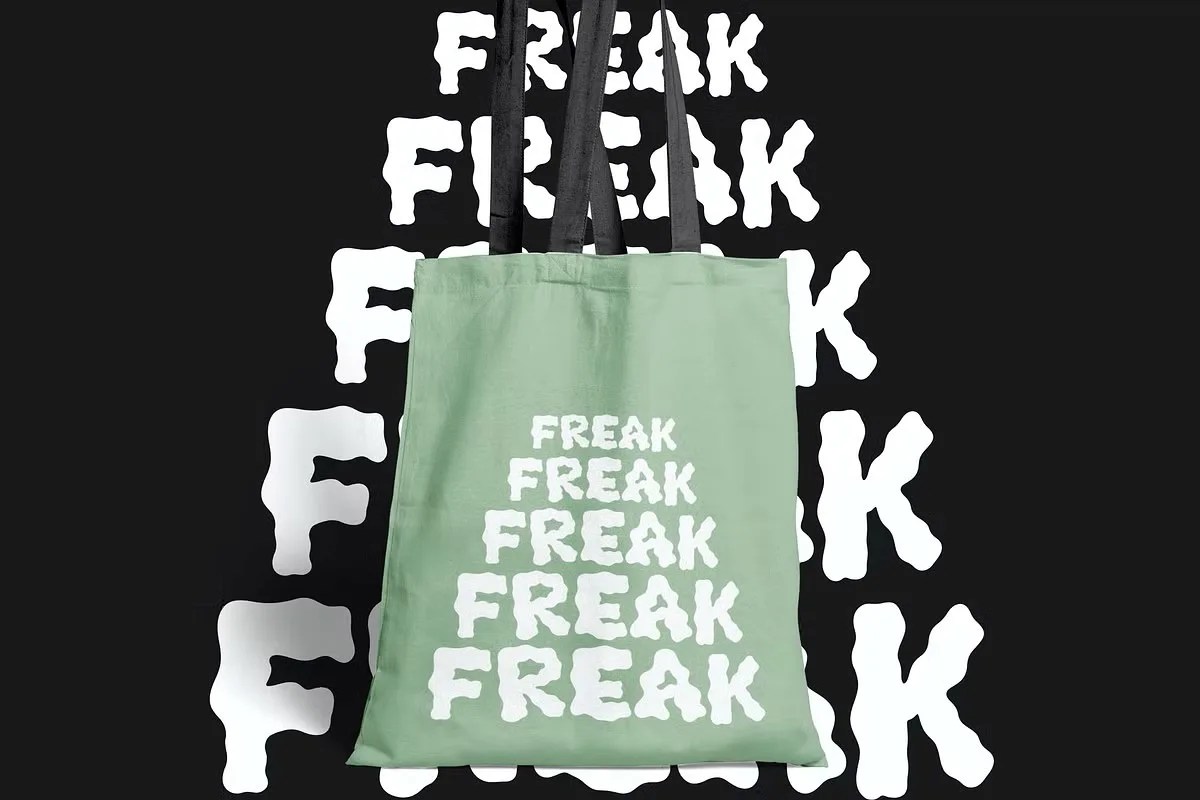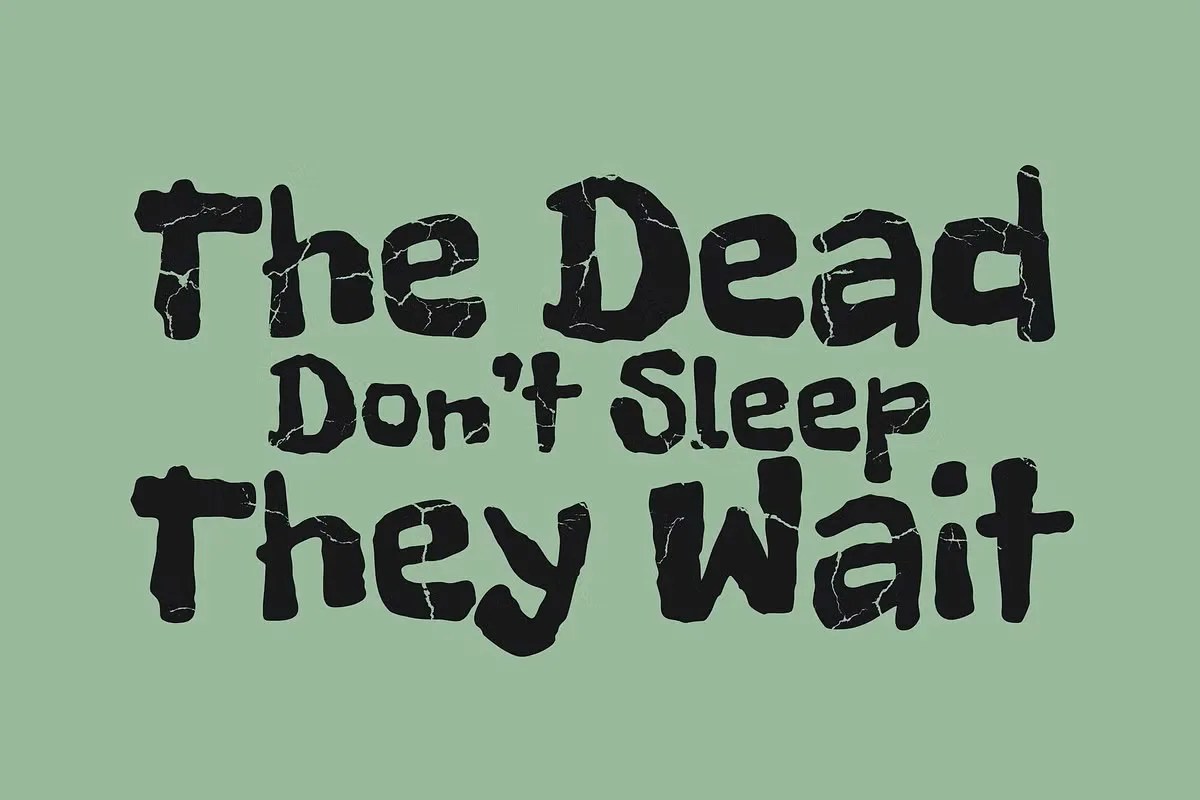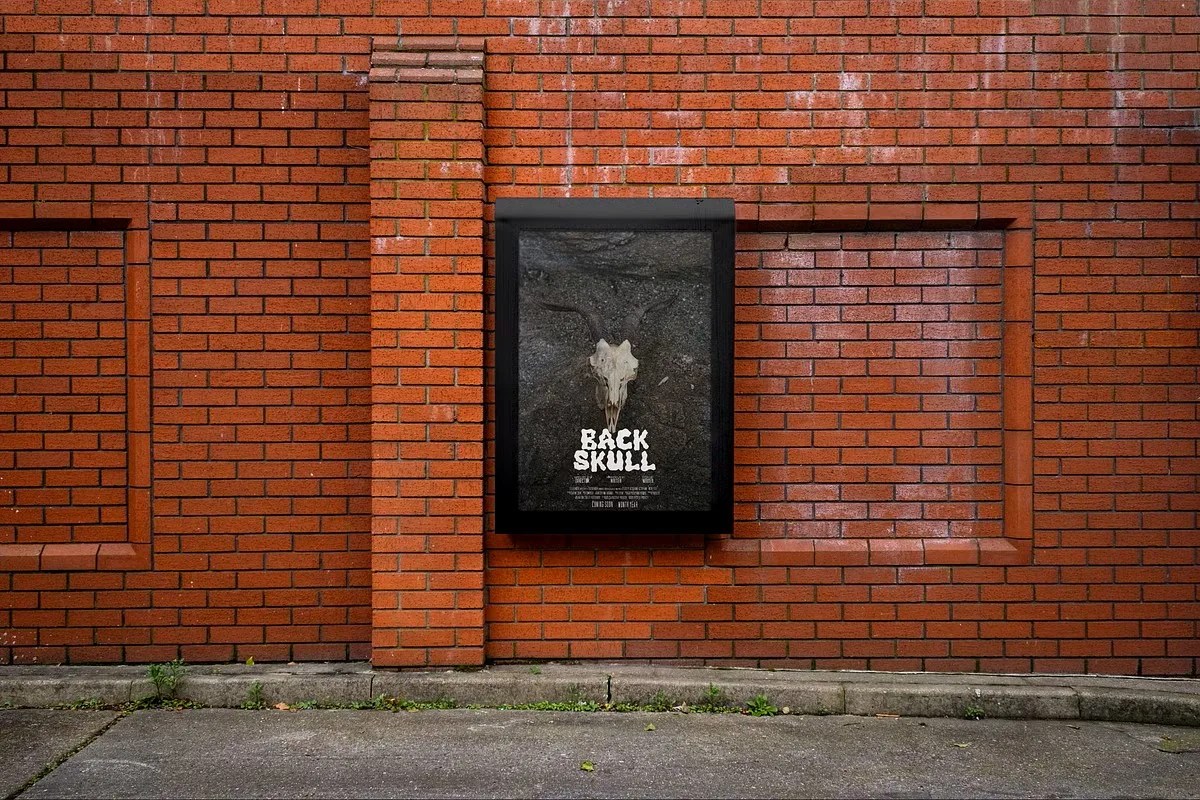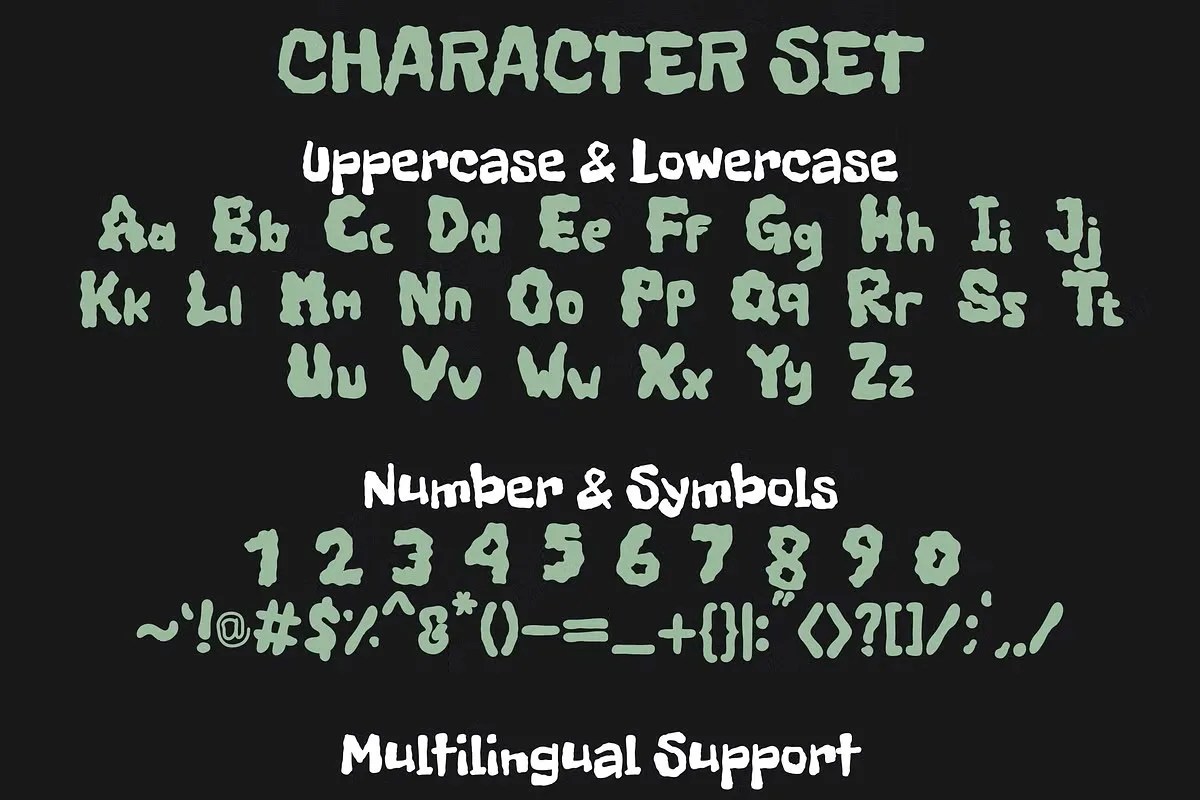
Blob Freak by Dm Studio. This is a bold and incredibly playful display font that features soft, rounded, and almost liquid letterforms. This unique typeface has a personality that is full of boundless energy. Dm Studio designed it to be friendly, approachable, and delightfully quirky. Blob Freak is perfect for any project that needs a dose of pure, unadulterated fun, breaking away from serious and formal designs.
This font is a fantastic match for fun and youthful projects. Specifically, it is an amazing choice for the packaging of candy, snacks, or toys. It immediately signals a sense of fun and excitement to the customer. Furthermore, this playful display font is perfect for digital content creators. Use it for eye-catching YouTube thumbnails or social media graphics to build a friendly and engaging brand. Its unique style is also great for event posters, stickers, and casual apparel designs.
• Fun and playful display style
• Features soft, rounded, blob-like letters
• Ideal for kids’ brands, packaging, and social media
• Provides a friendly, gooey, and energetic look